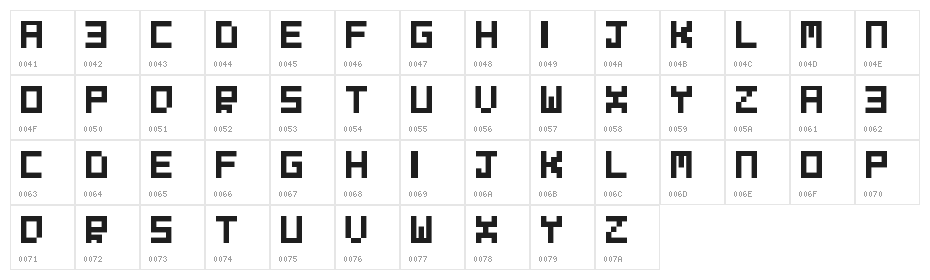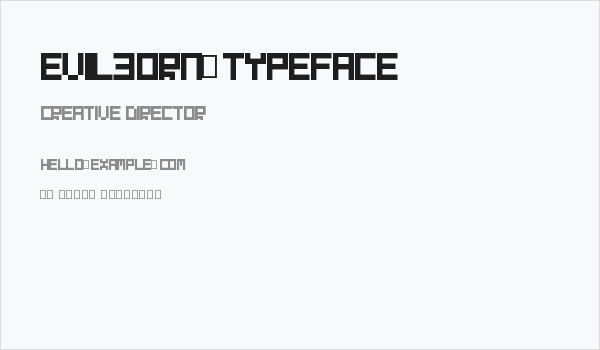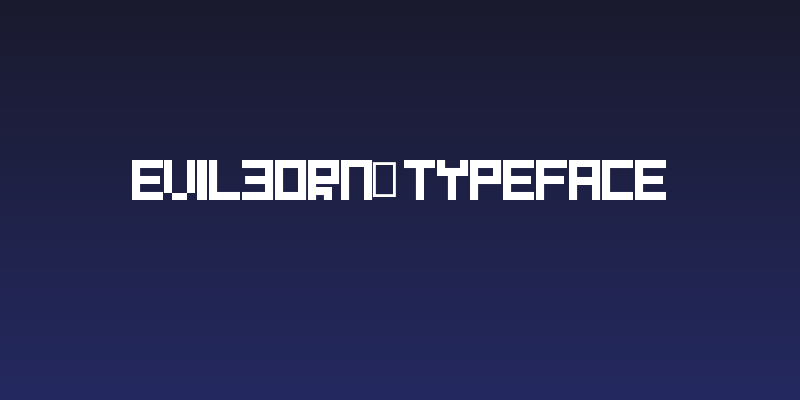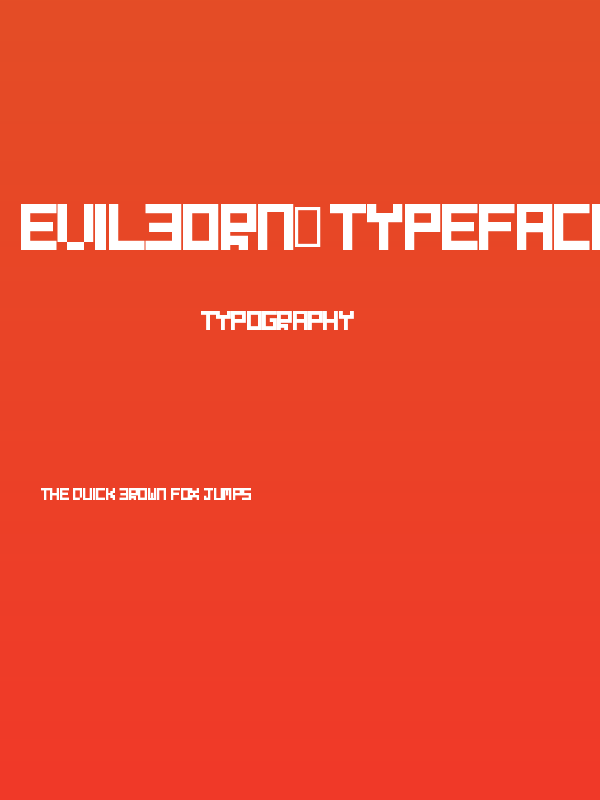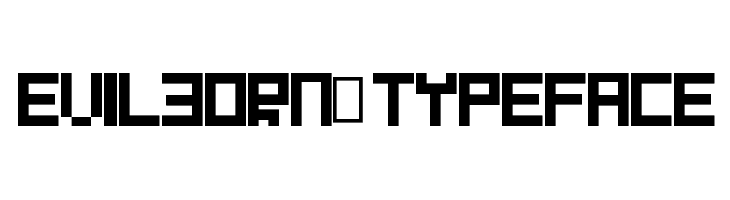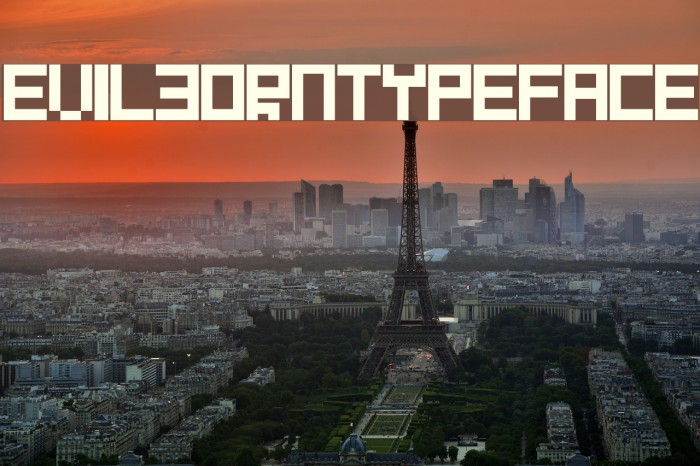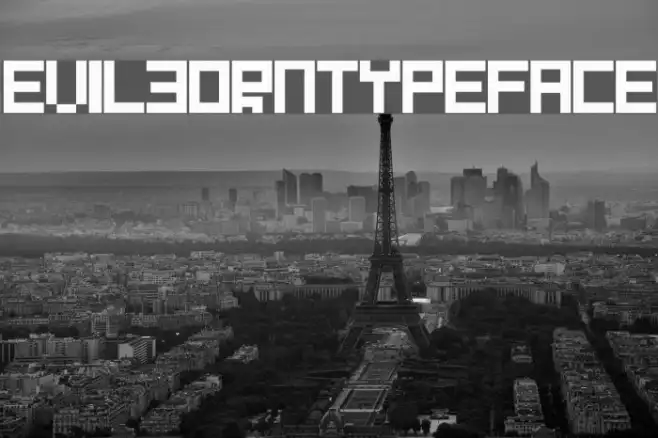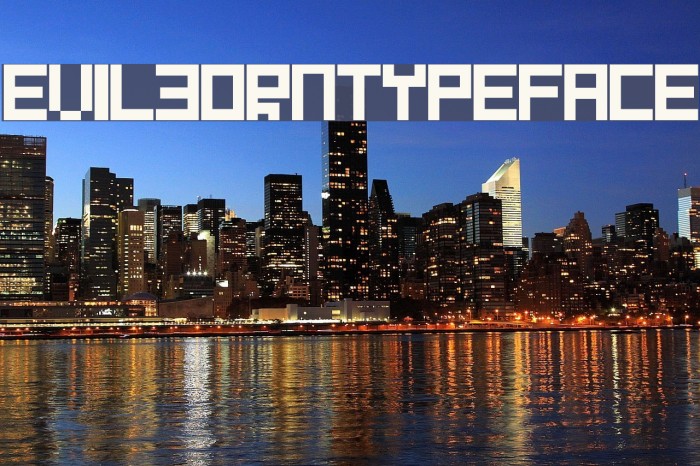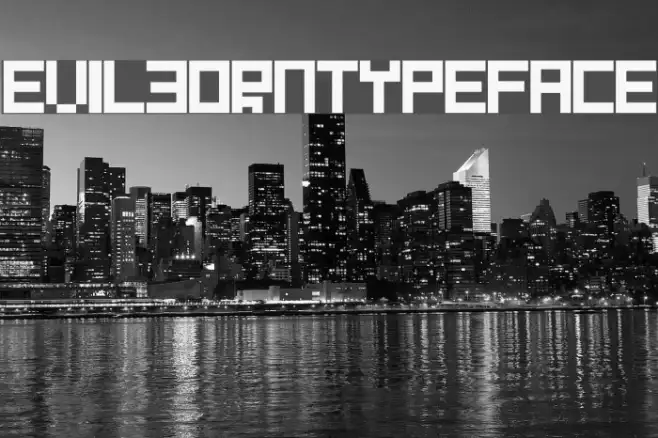
Evilborn-Typeface Font
Evilborn-Typeface Description
This typeface features a bold, geometric design with a distinct blocky appearance. Each character is constructed with sharp, angular lines, creating a futuristic and digital aesthetic. The uniformity of the characters gives it a cohesive look, while the bold weight ensures strong visibility. The font's structure is reminiscent of pixel art, making it ideal for projects that require a modern, tech-inspired feel. The uppercase and lowercase letters maintain a consistent style, and the numerals and special characters are designed to match the overall theme.
| Proposed Projects | Ideal for video game design, tech branding, digital art projects, and futuristic-themed posters. |